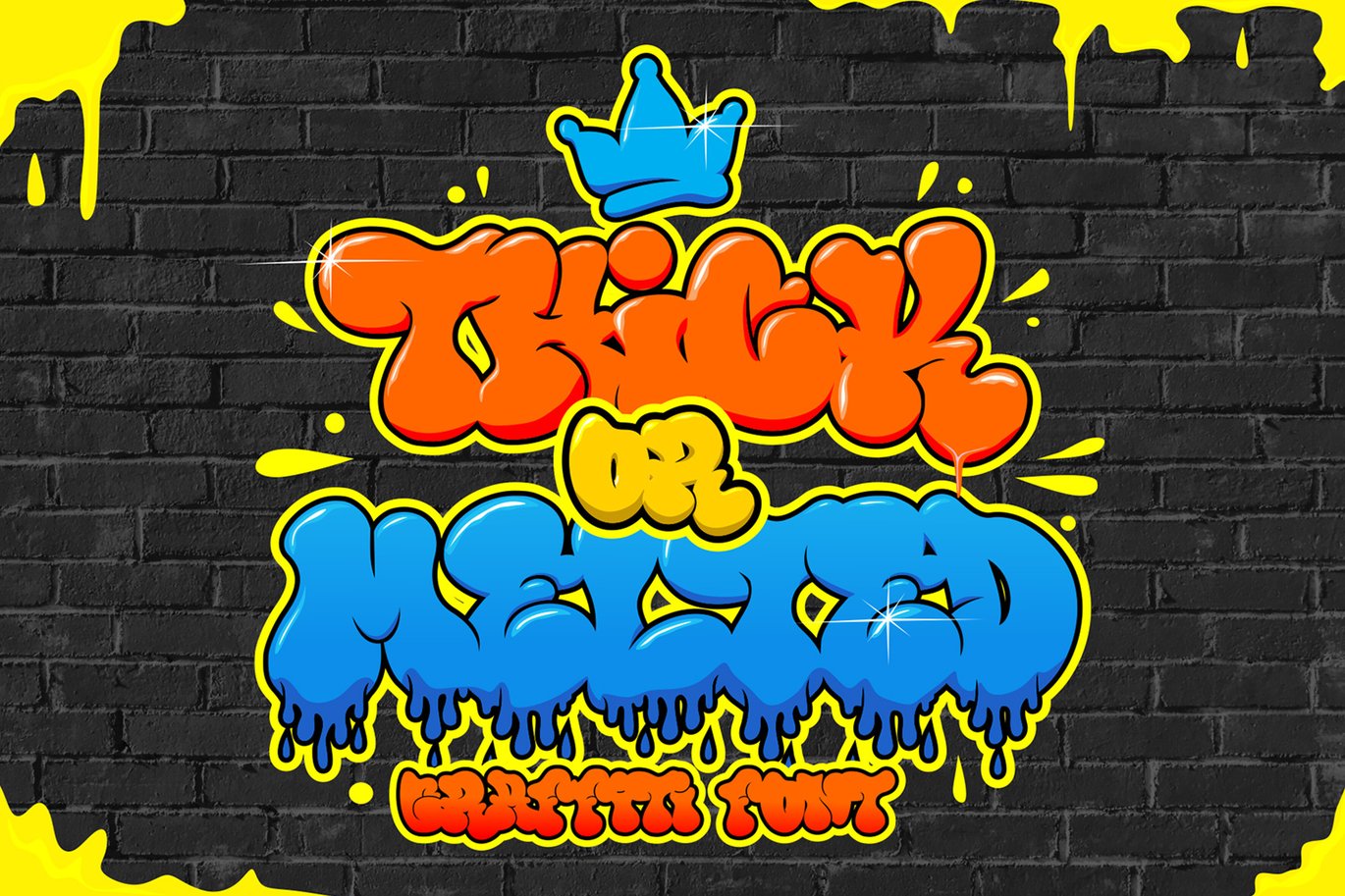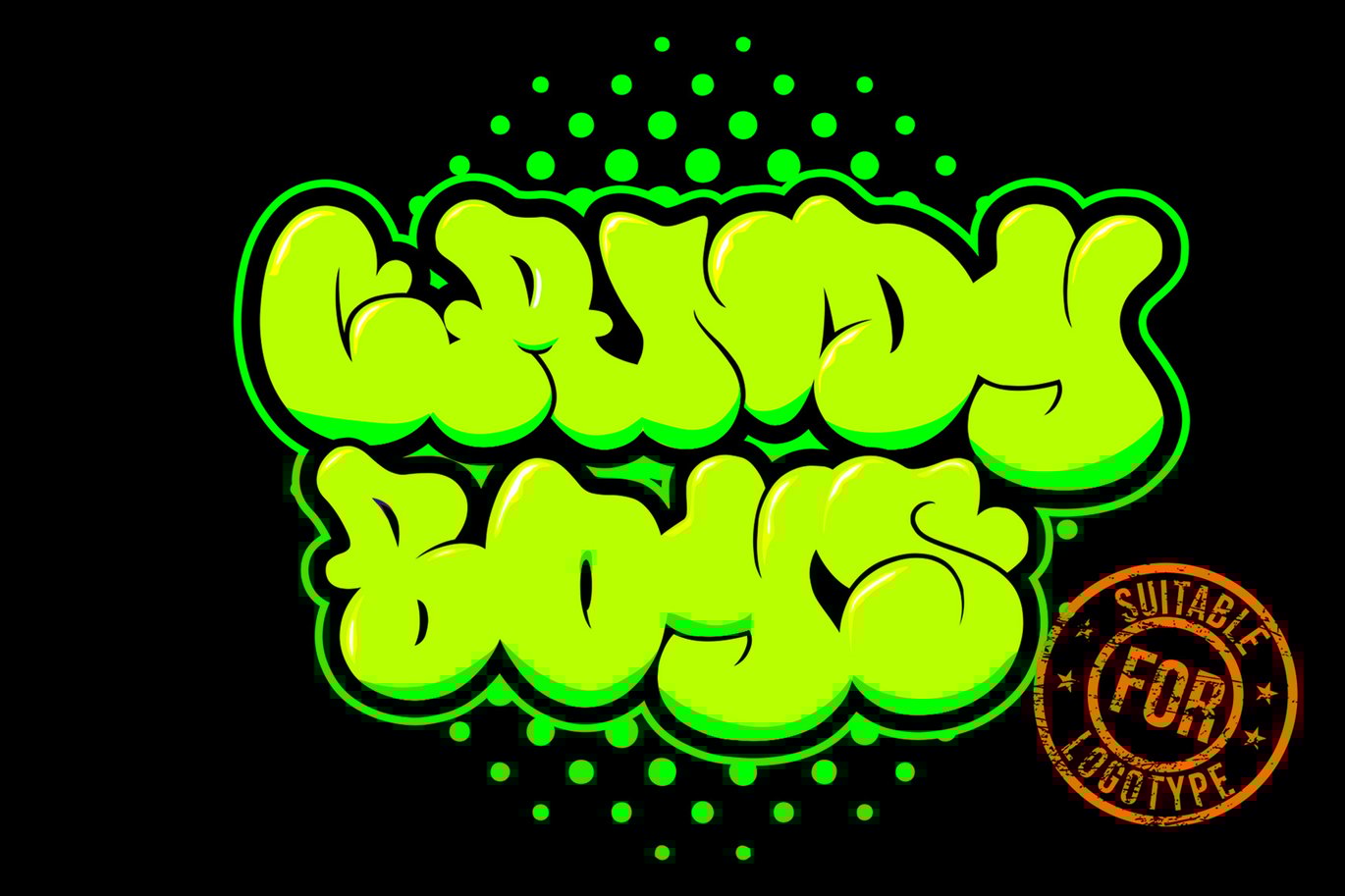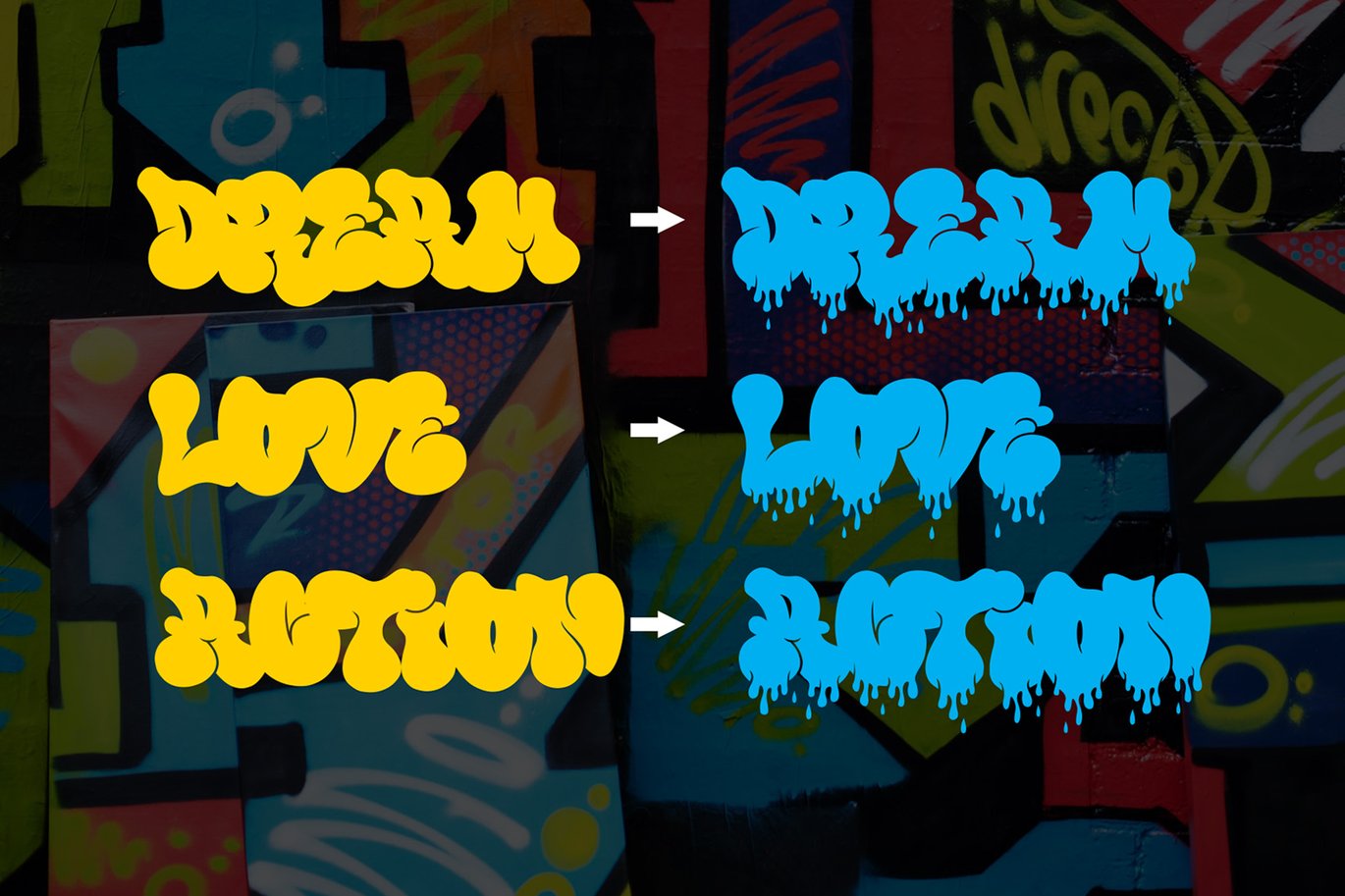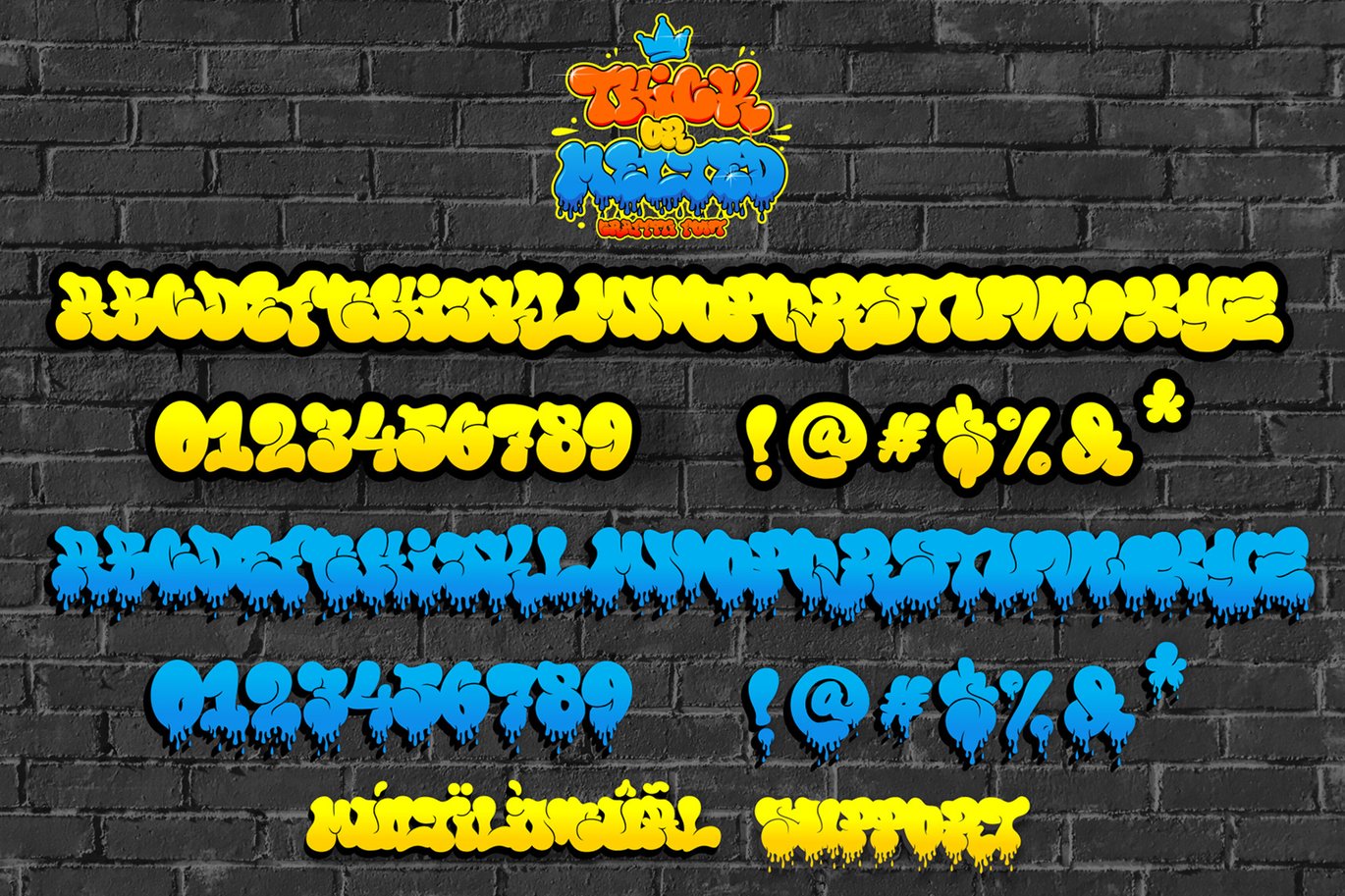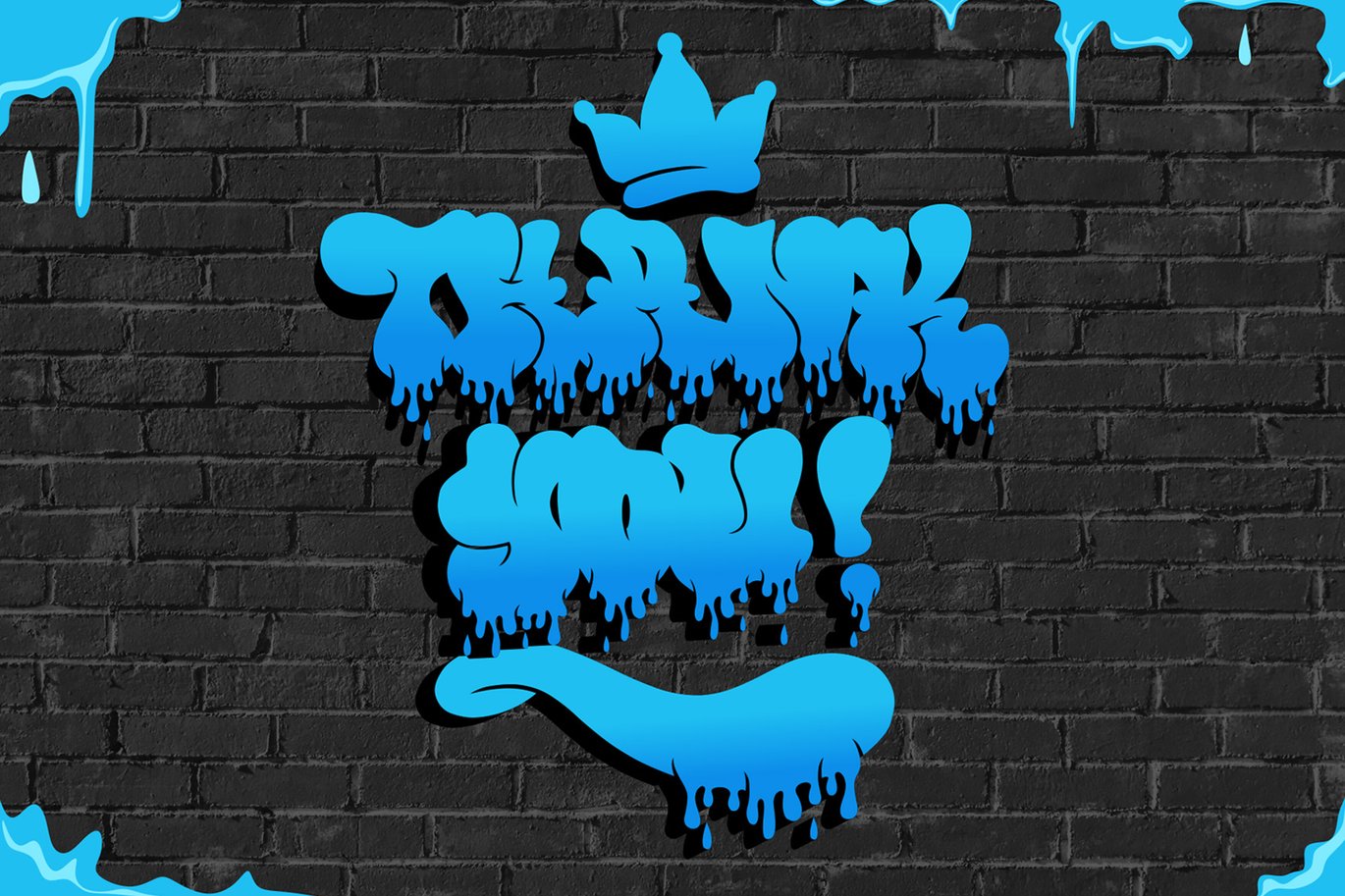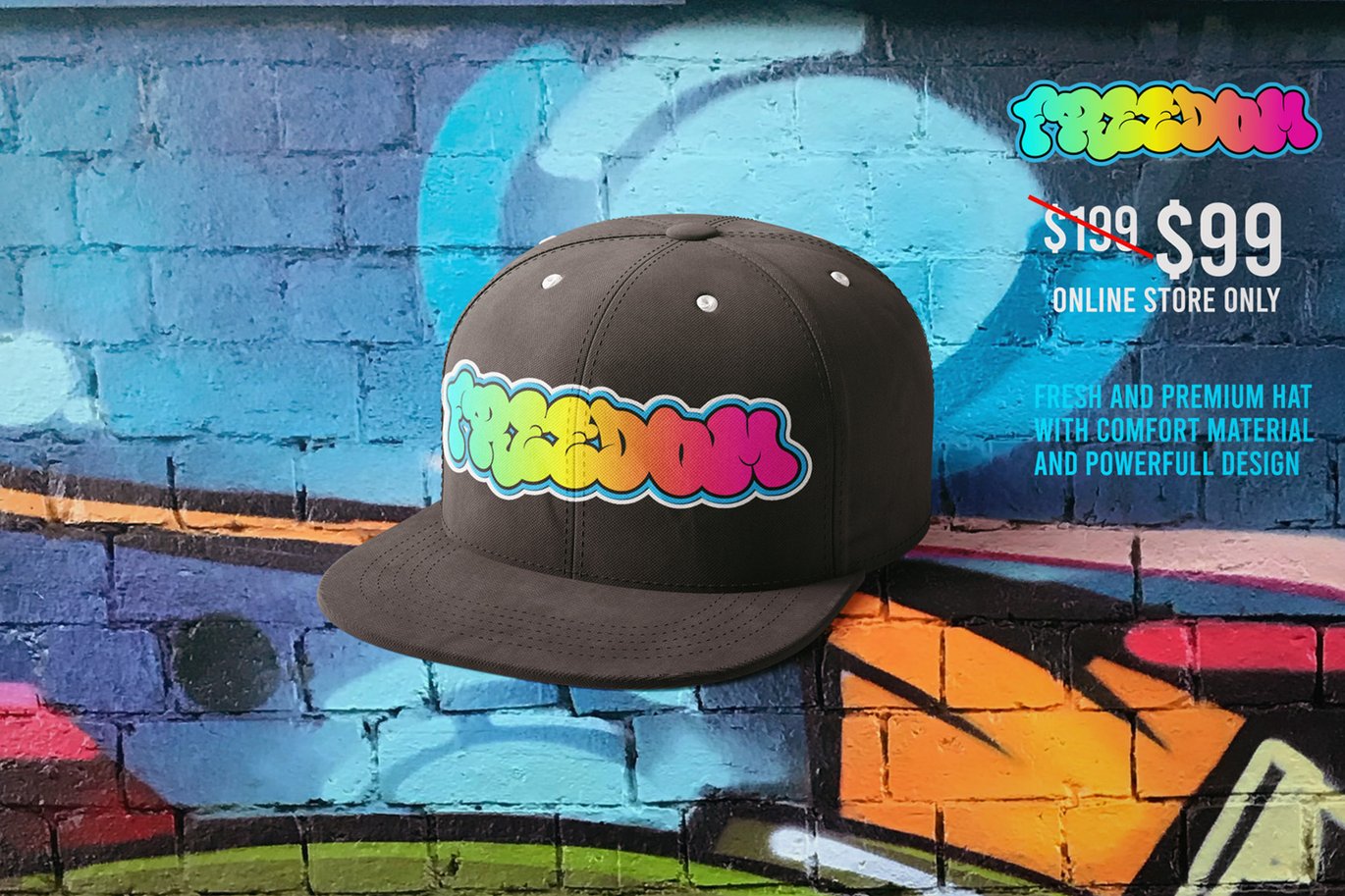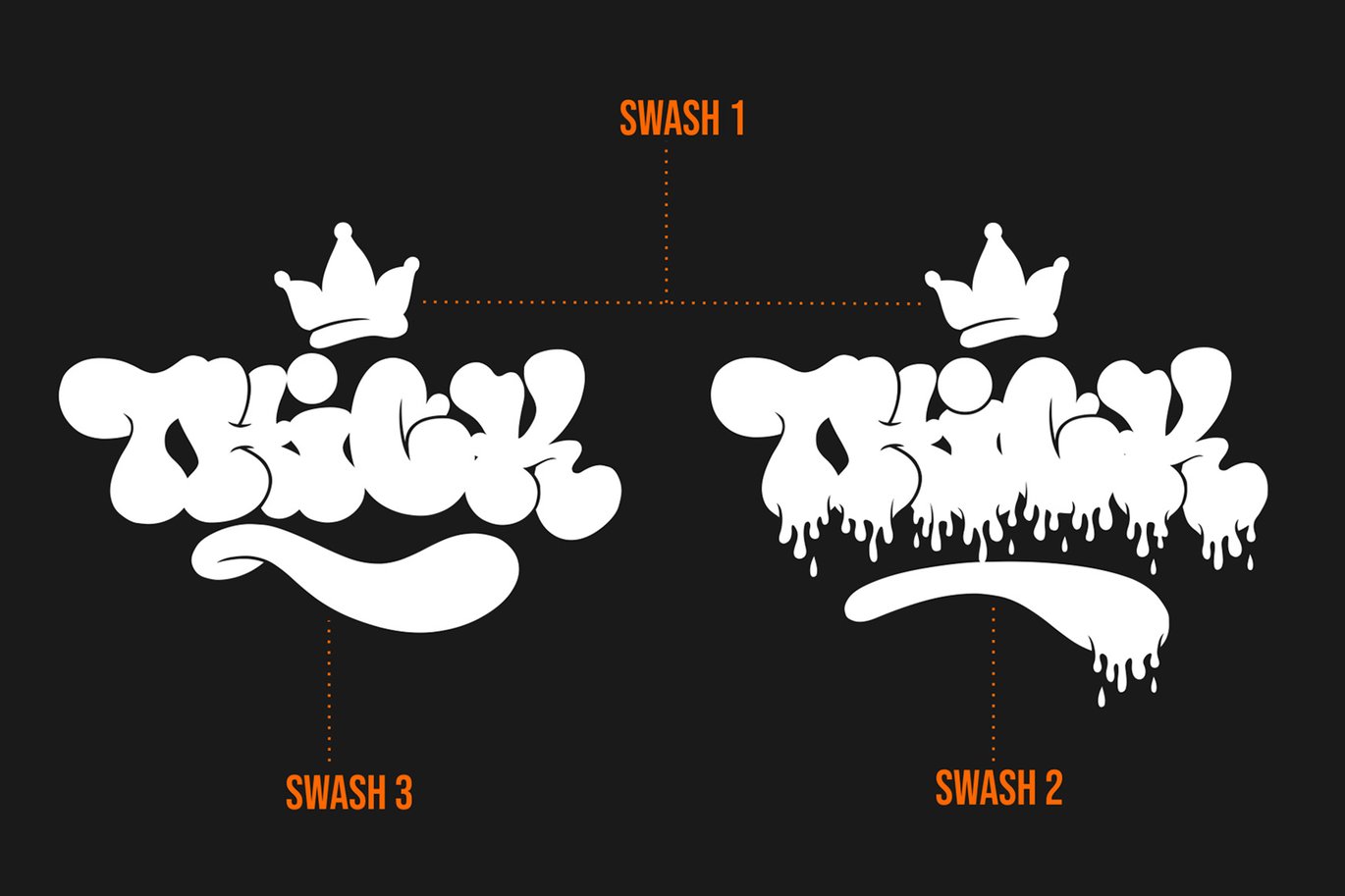
Thick or Melted – Unique Graffiti Font
Thick or Melted is a spectacular decorative font with a thick and bubble graffiti style. there are 2 types of fonts, regular style, and dripping style. It will elevate a wide range of design projects to the highest level, be it branding, headings, poster designs, logotype, wall art illustration, labels, and much more!